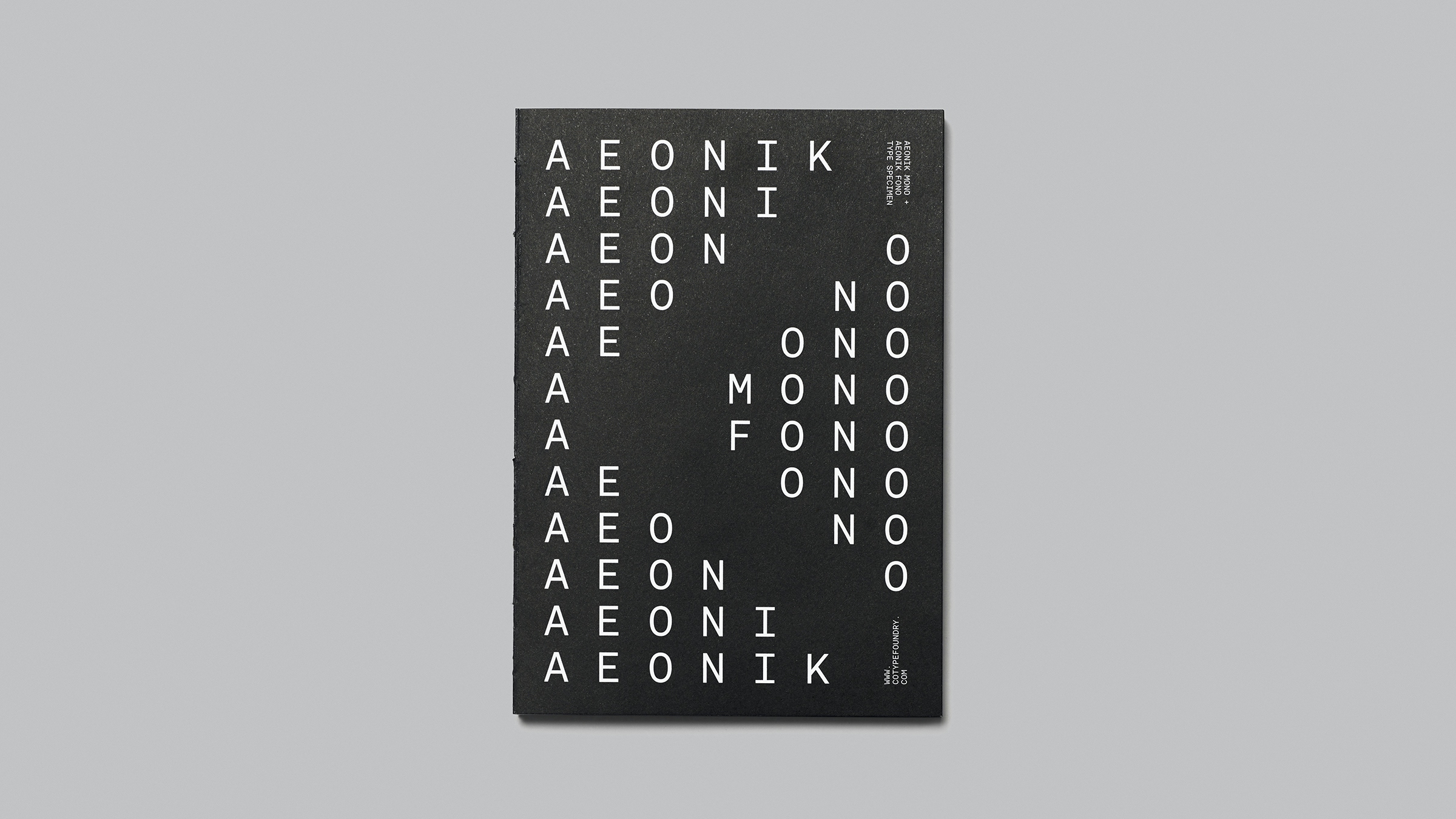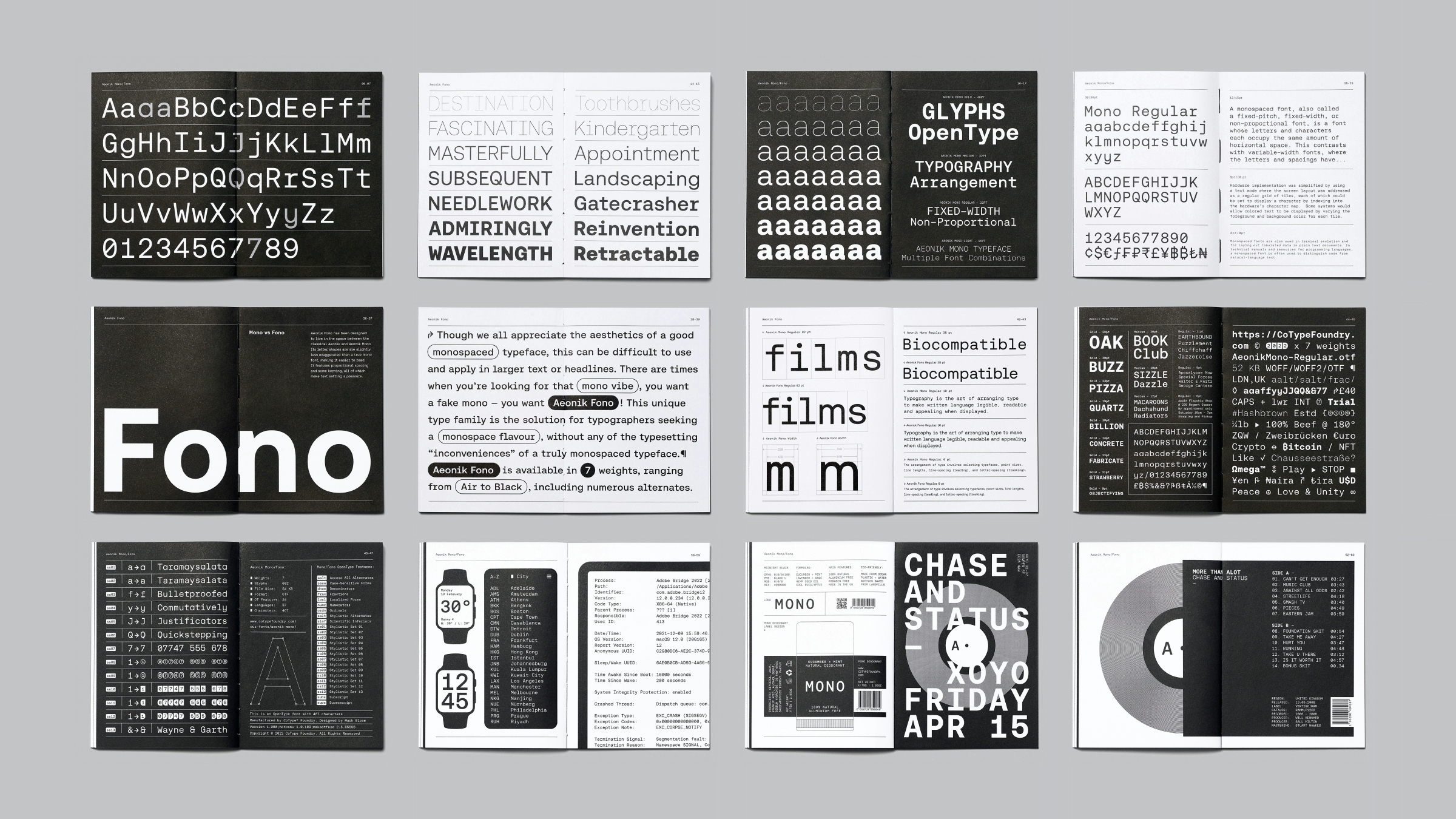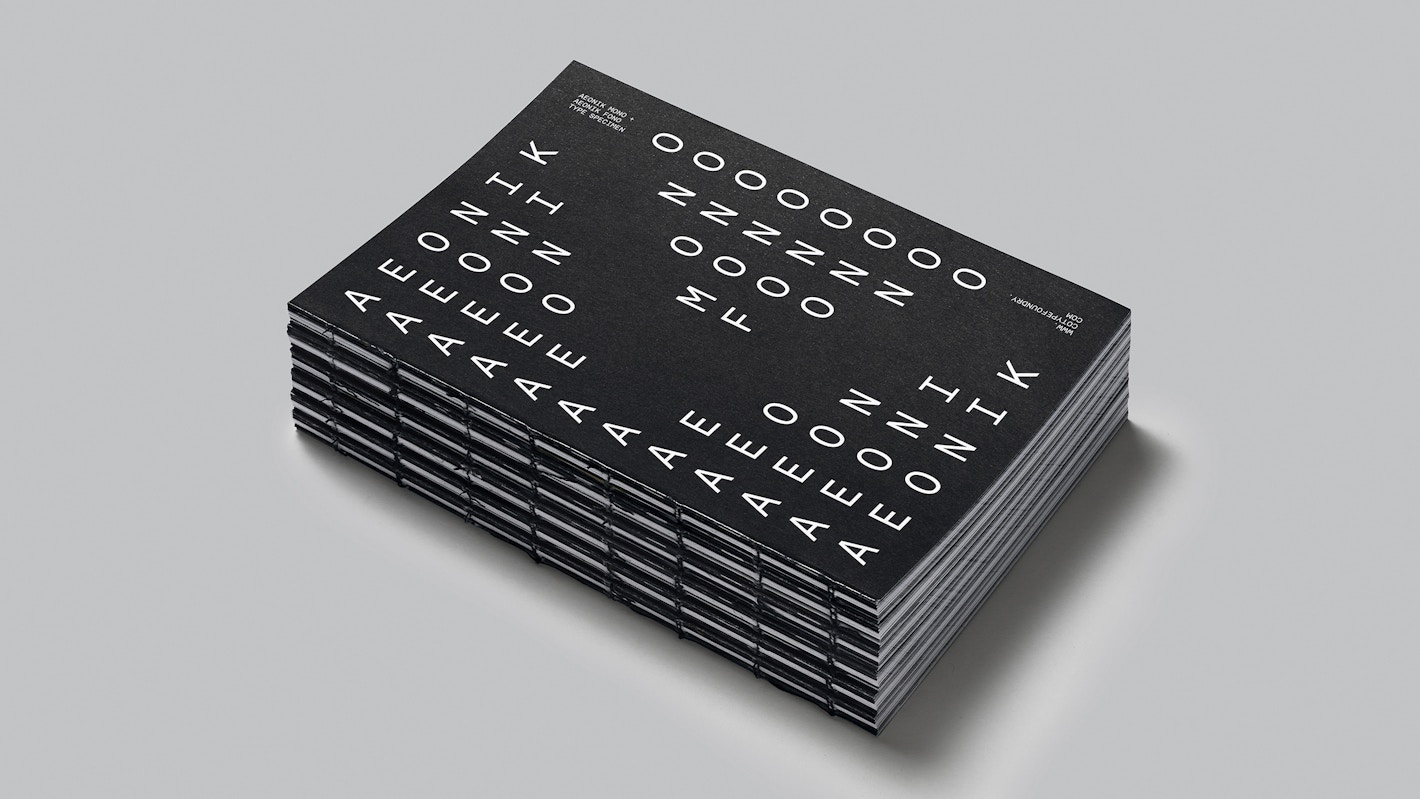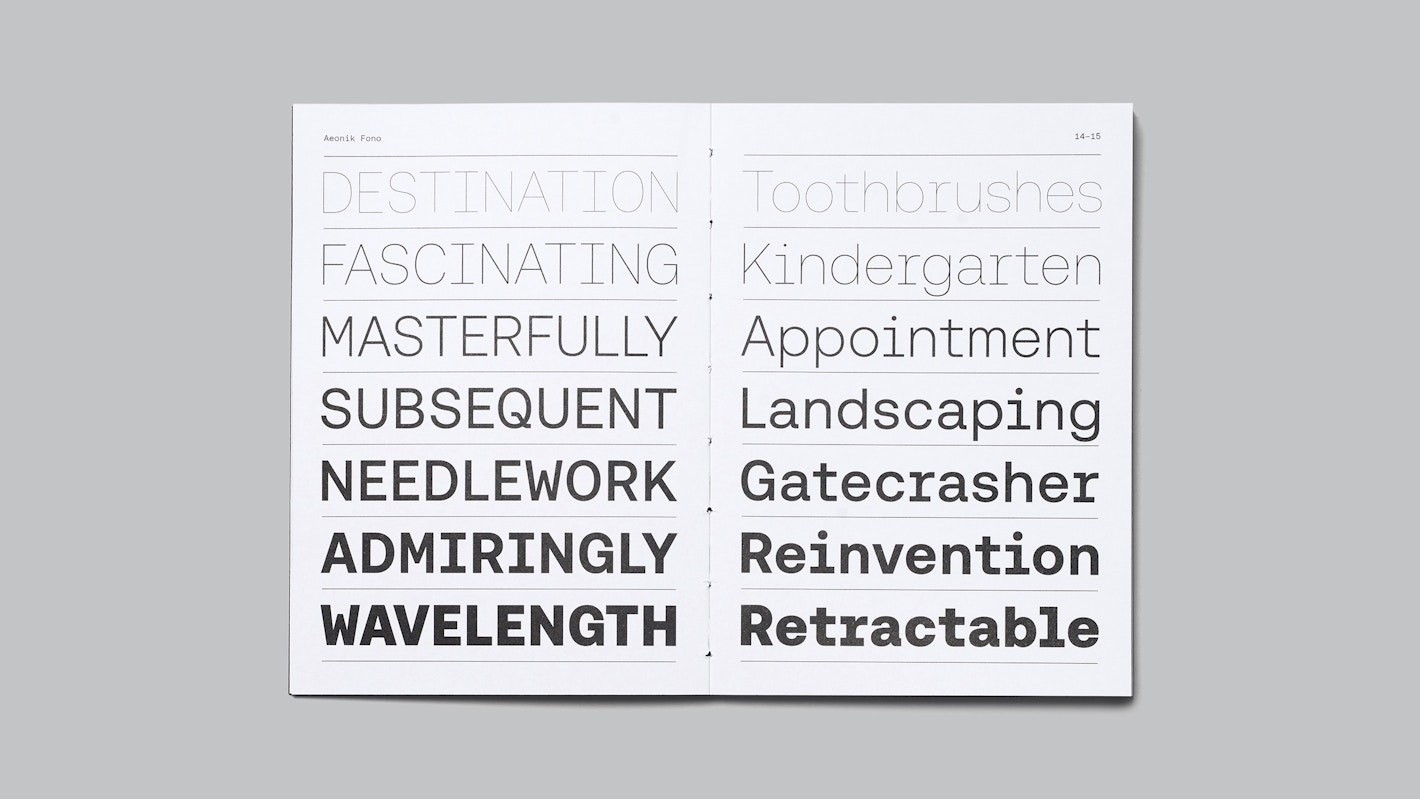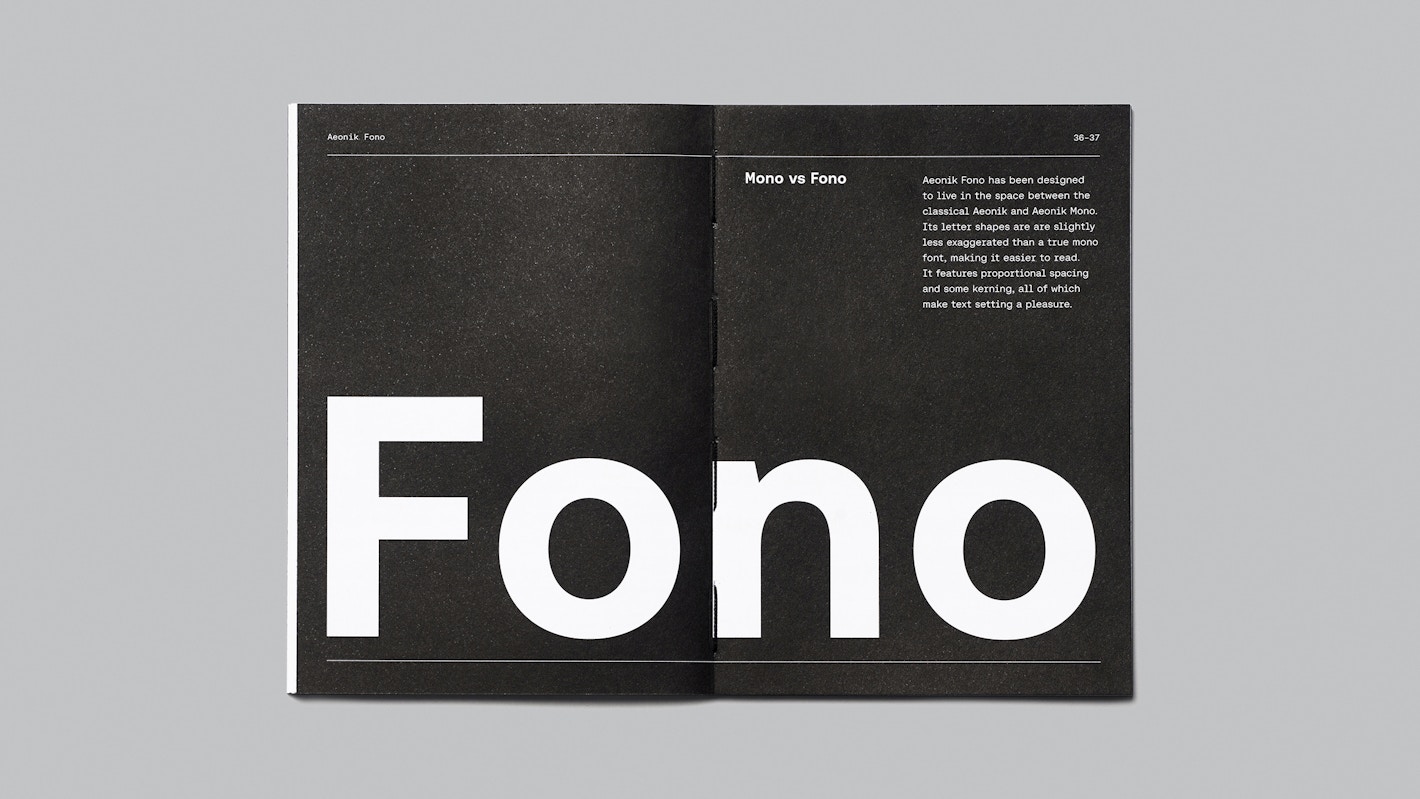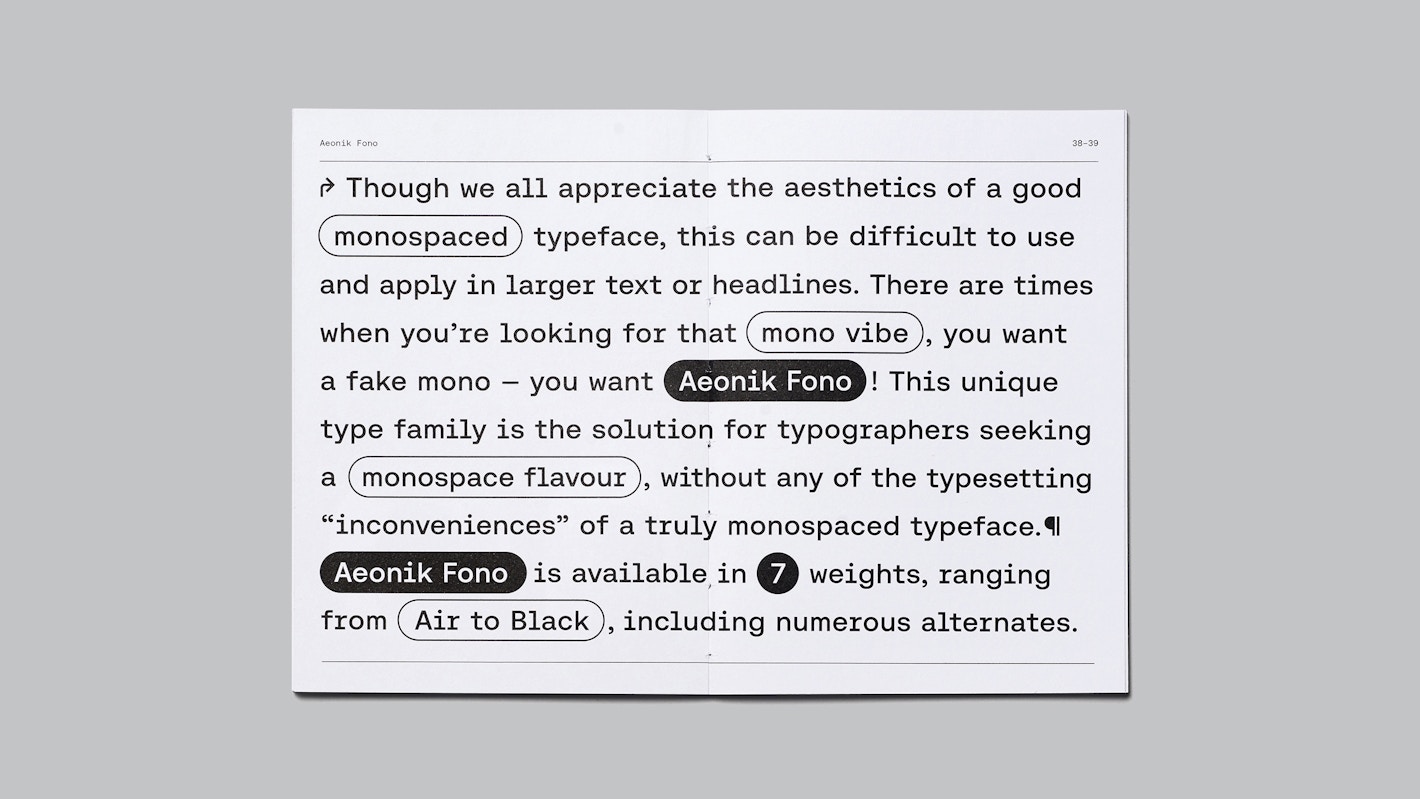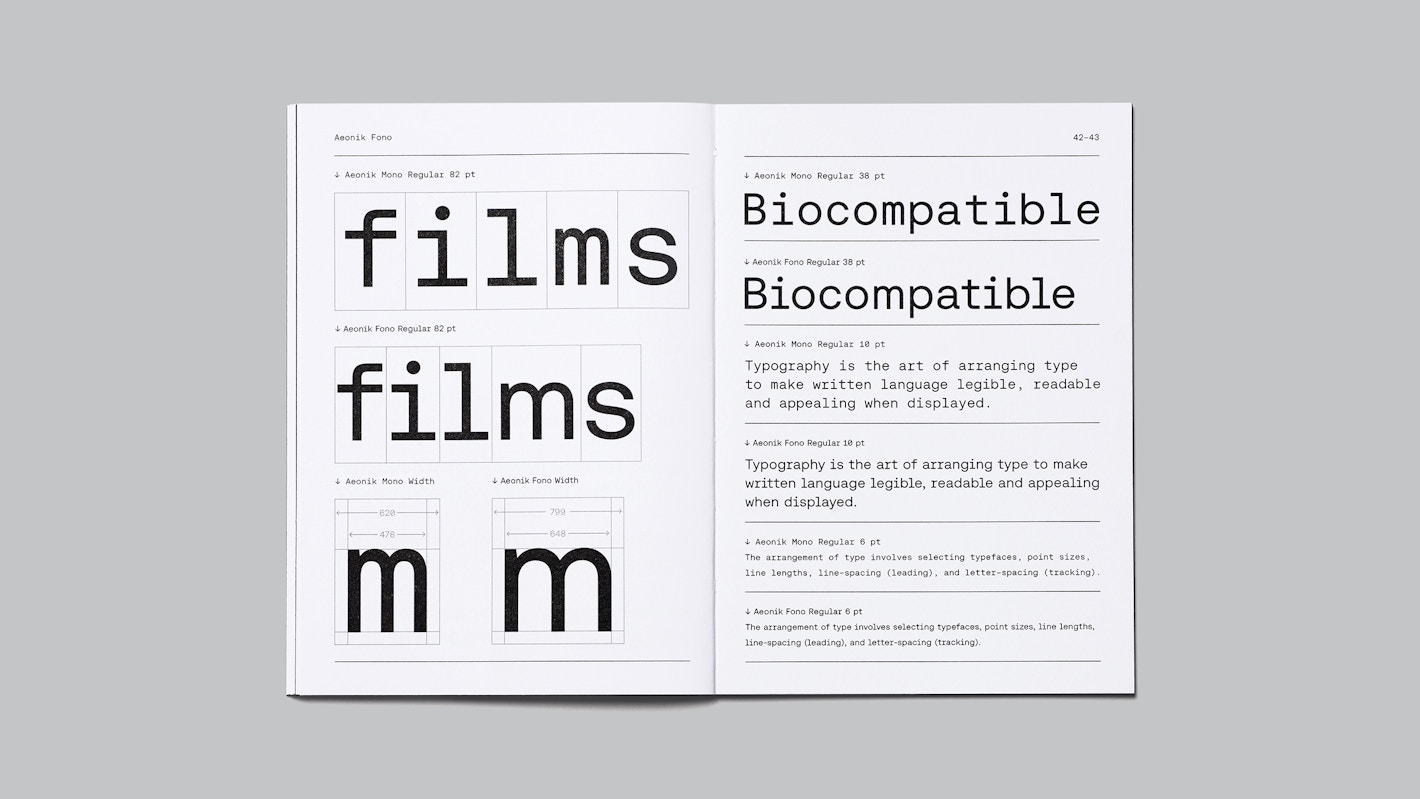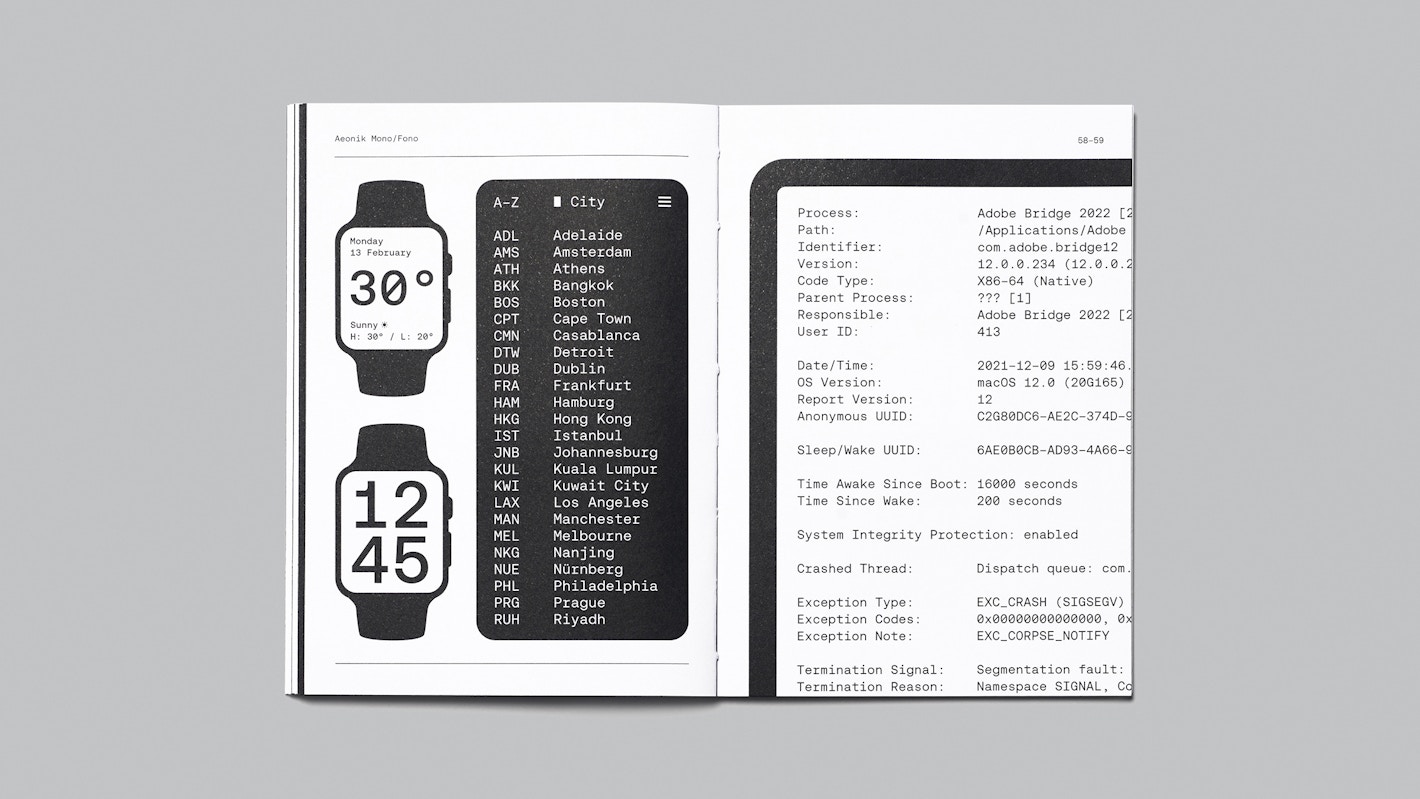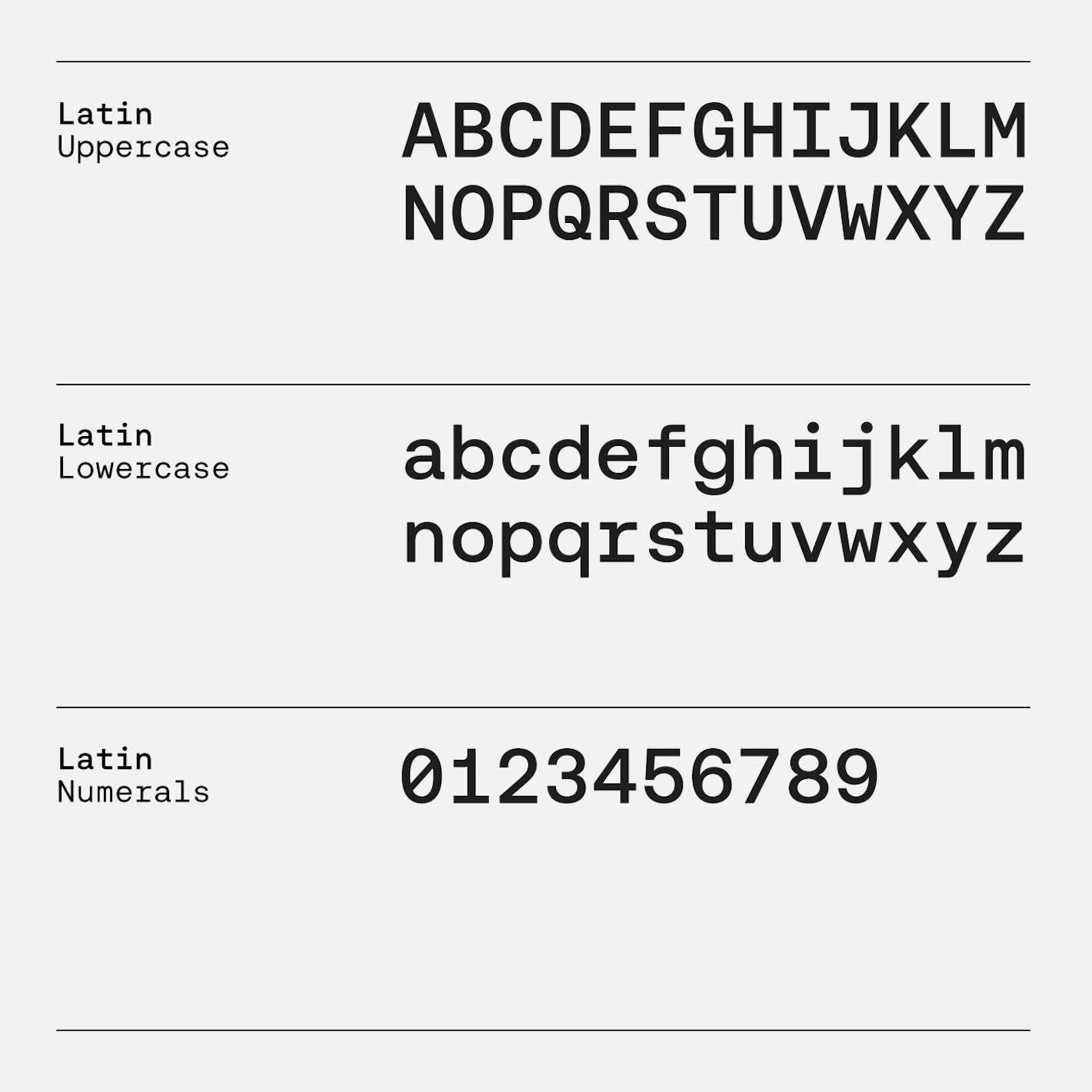
Aeonik Mono reimagines the features that make the original Aeonik a favorite among designers, transforming them into a true monospaced type family for graphic design projects. Like all fixed-pitch fonts, each character in Aeonik Mono fits within a box of the same width – precisely 620 units in this case.
Available in eight weights, from Thin to Black, Aeonik Mono supports an extensive range of languages, including most European languages written in the Latin script as well as Vietnamese, multiple Cyrillic-based languages, and Greek. Language support options can be selected at checkout.
Just like Aeonik, Aeonik Mono features closed apertures, perpendicular stroke endings, and a clean Swiss Grotesque aesthetic. To maintain balance within the monospaced framework, long serifs have been added to letters like ‘i,’ ‘j,’ ‘l,’ and ‘I.’ Aeonik Mono also brings its own unique flavor with numerous boxed and circled numeral sets and alternates for characters like ‘a,’ ‘f,’ ‘y,’ ‘J,’ ‘Q,’ ‘7,’ and ‘&.’ It even includes three sets of arrows – small arrows, uppercase arrows, and navigational arrows – to expand its versatility.
Aeonik Mono pairs effortlessly with any of the members in the Aeonik Family, making it ideal for projects requiring complex or creative typographic hierarchies. Its stylistic sets, case alternates, fractions, and variety of numeral styles give designers the flexibility to adapt its “voice” to suit any project’s needs.